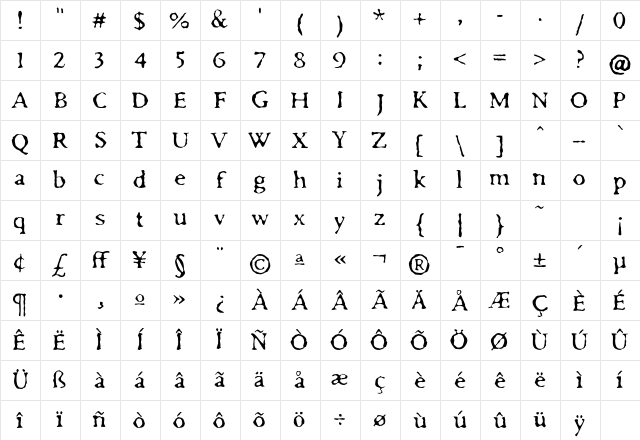
Irregular Light
Irregular Family
Irregular Light
Design Context for Irregular
Irregular is a composed and adaptable typeface that performs quietly and consistently across a wide range of design contexts. Its slender proportions lend an understated elegance to any composition.